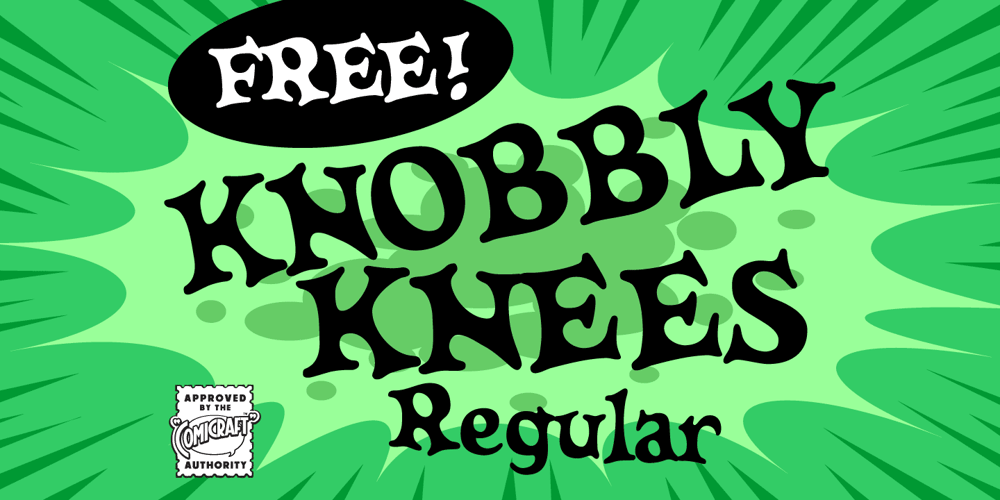
Knobbly Knees Font Family was designed by John Roshell and published by Comicraft. Knobbly Knees contains 5 styles and family package options. Comicraft’s latest joint has us swollen with pride! This one caps ’em all! Yes, it may look a little bony and stick out at right angles to our shins, but we reckon we’ll win the a whole bunch of contests with this one… if we get up off our haunches and hobble up on stage.